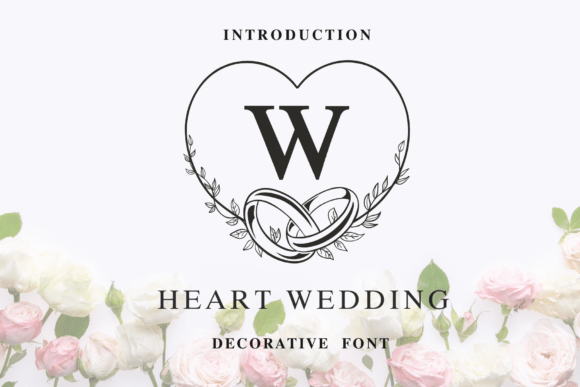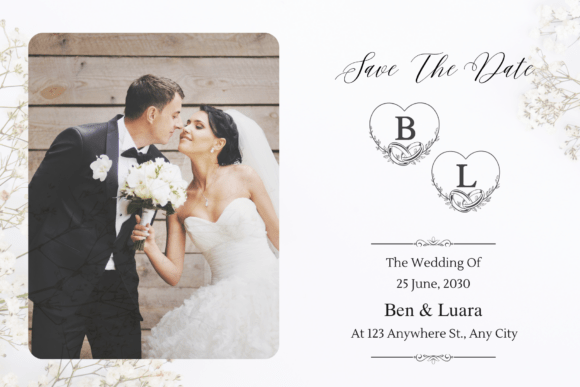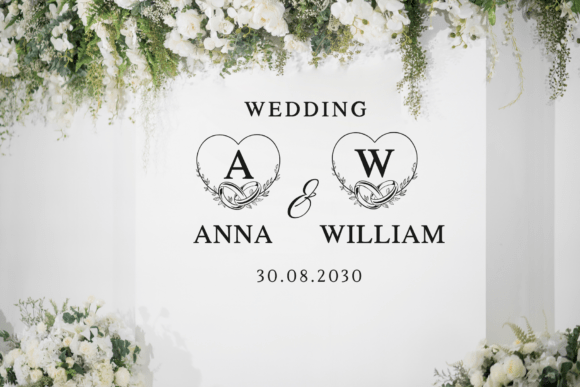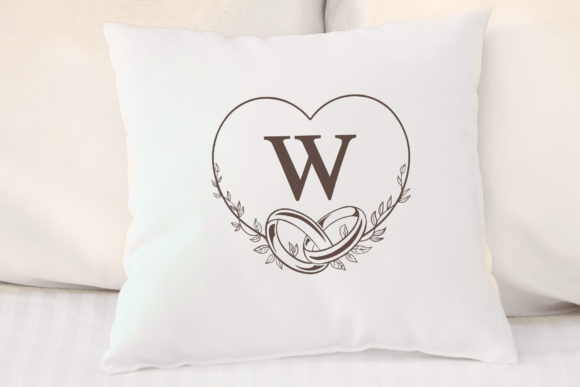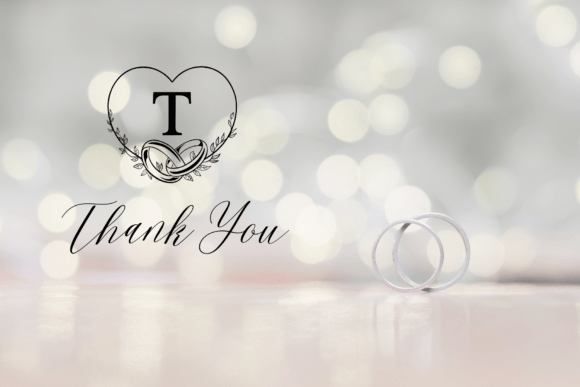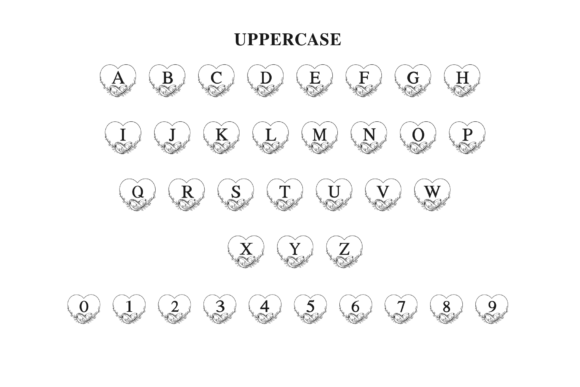
Heart Wedding Font
Heart Wedding Monogram Typeface
Heart Wedding Monogram is an elegant decorative font designed for romantic and wedding-themed projects, featuring heart shapes, floral wreaths, and intertwined rings to symbolize love and unity. Perfect for creating personalized wedding monograms, invitations, save-the-date cards, thank-you notes, and event signage.